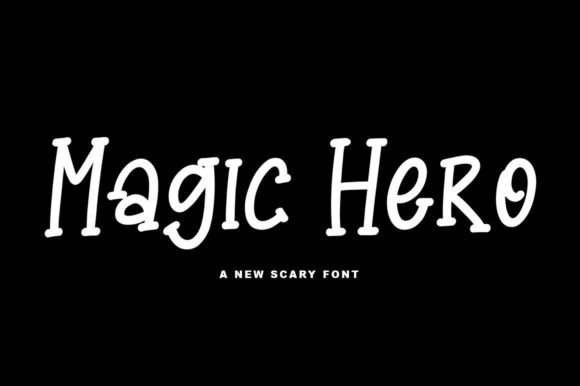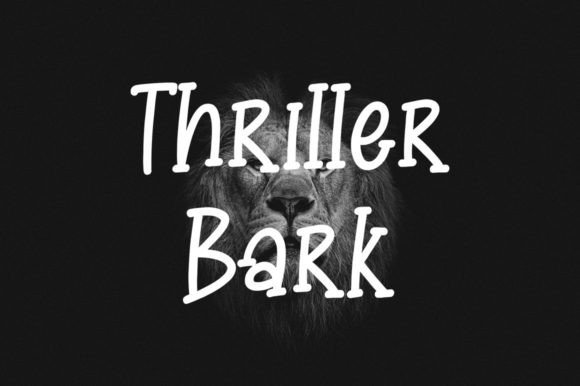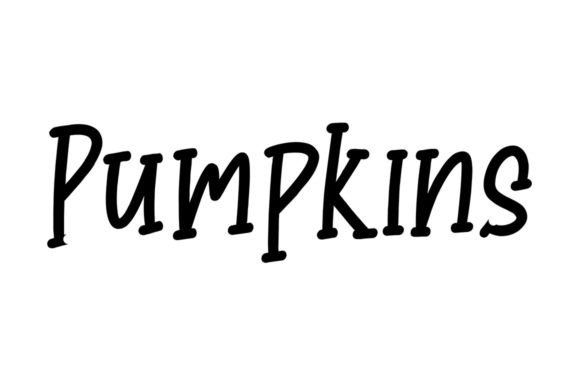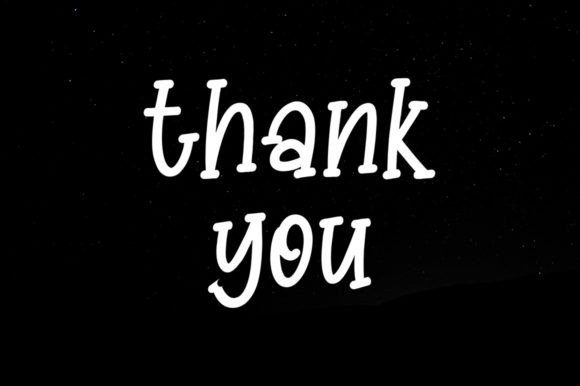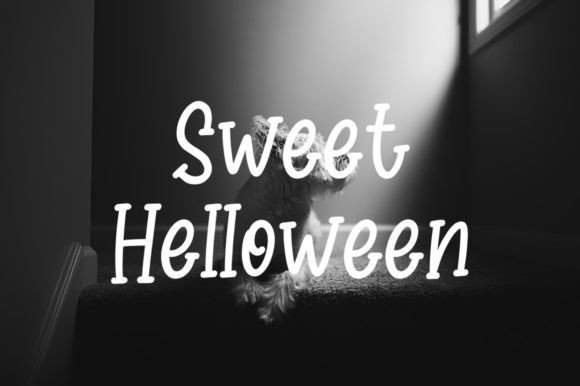
Magic Hero
About Magic Hero
Magic Hero latest style letters are perfect for wall displays, wedding invitations, social media post logos, advertisements, product packaging, product designs, labels, photography, watermarks, invitations, stationery, and any project that requires handwritten taste.